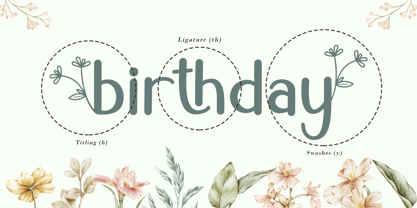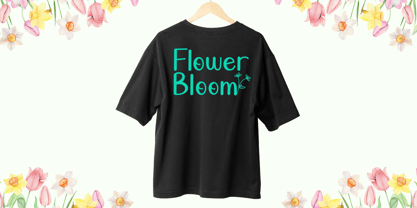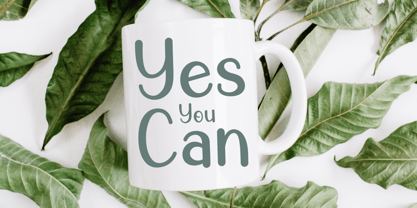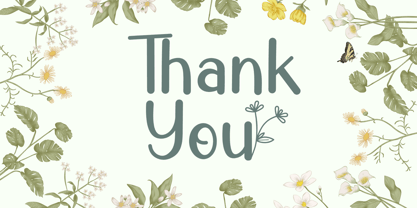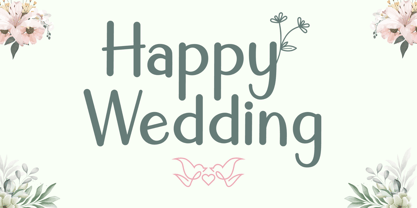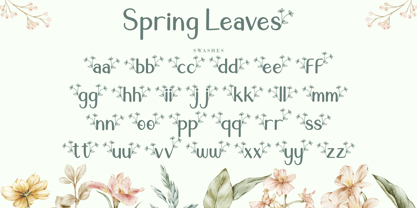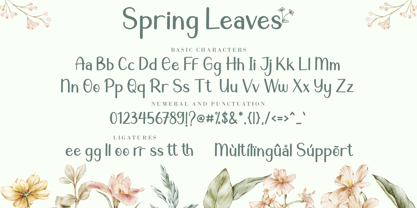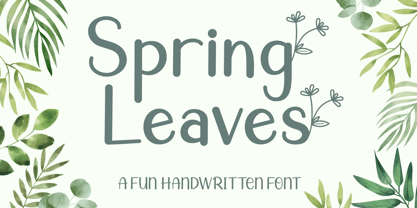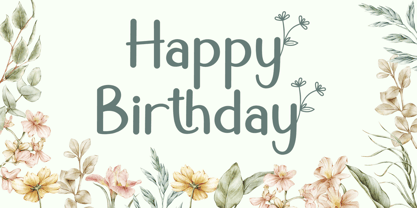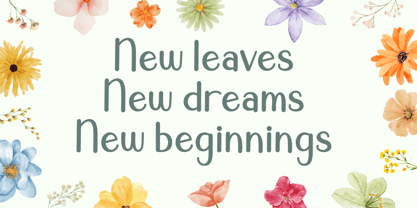
Spring Leaves
by AEN Creative Studio
The Spring Leaves Font Family was designed by Agung Eko Nugroho and published by AEN Creative Studio. Spring Leaves contains 2 styles and family package options.
Say hello to Spring Leaves, a charming handwritten typeface that combines natural elements with a playful vibe. With its organic style and cheerful vibes, this font is made for crafters, content creators, and anyone looking to bring spring magic into their designs. Perfect for kids’ themes, DIY projects, or seasonal posts. Spring Leaves will make your creativity bloom!
Designers: Agung Eko Nugroho
Publisher: AEN Creative Studio
Foundry: AEN Creative Studio
Design Owner: AEN Creative Studio